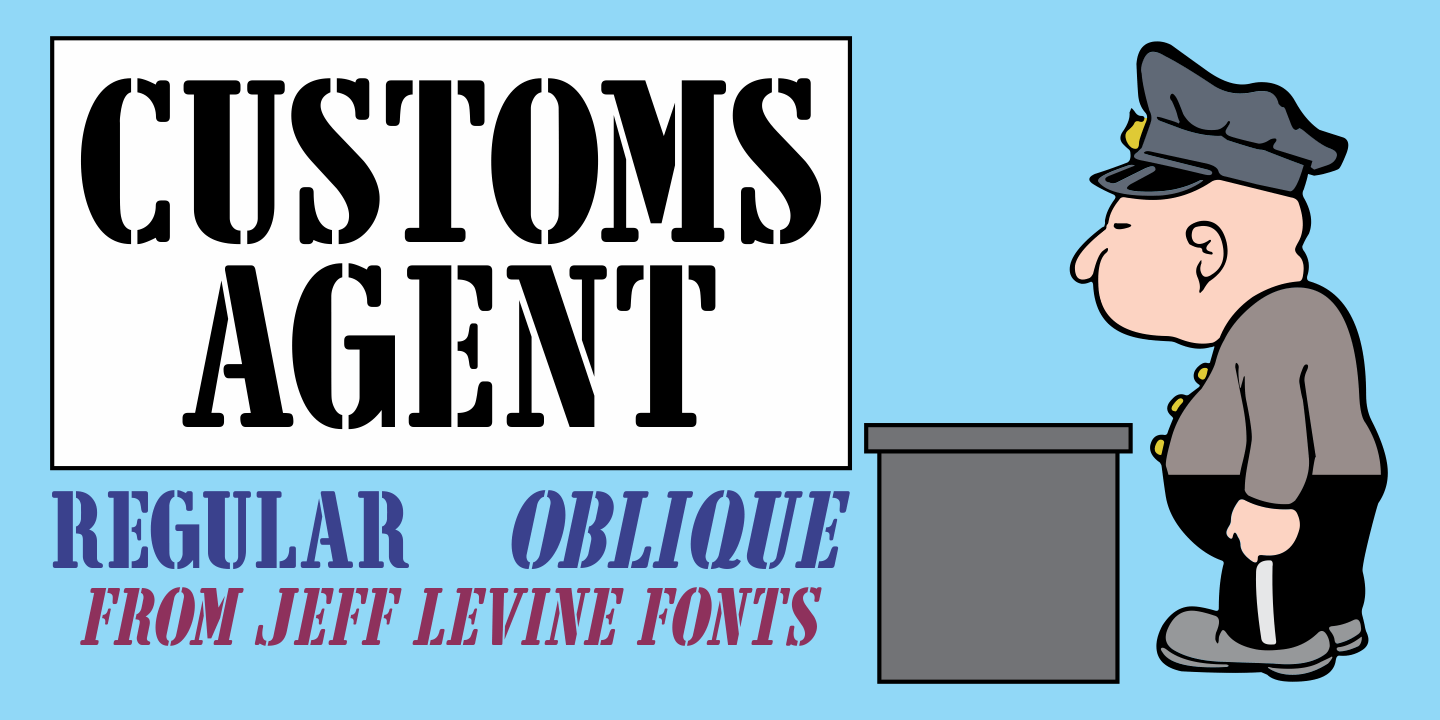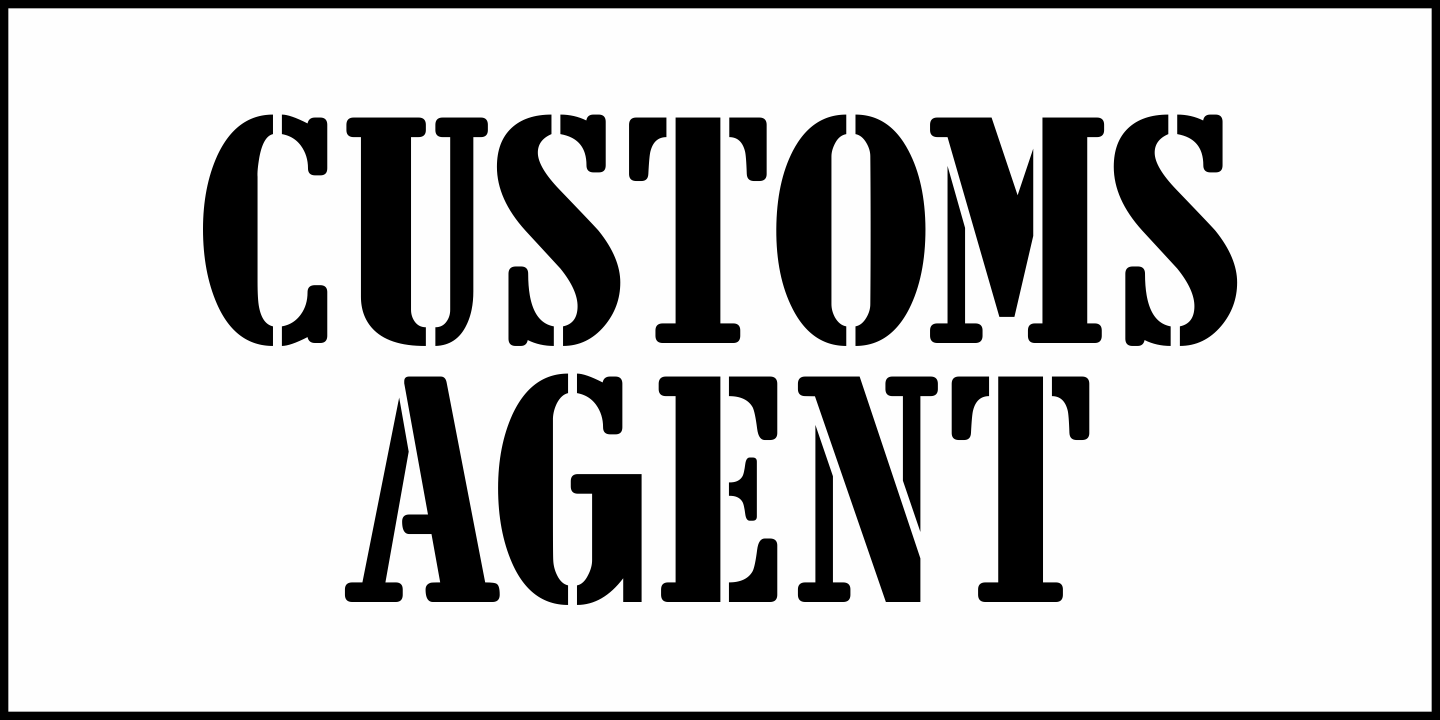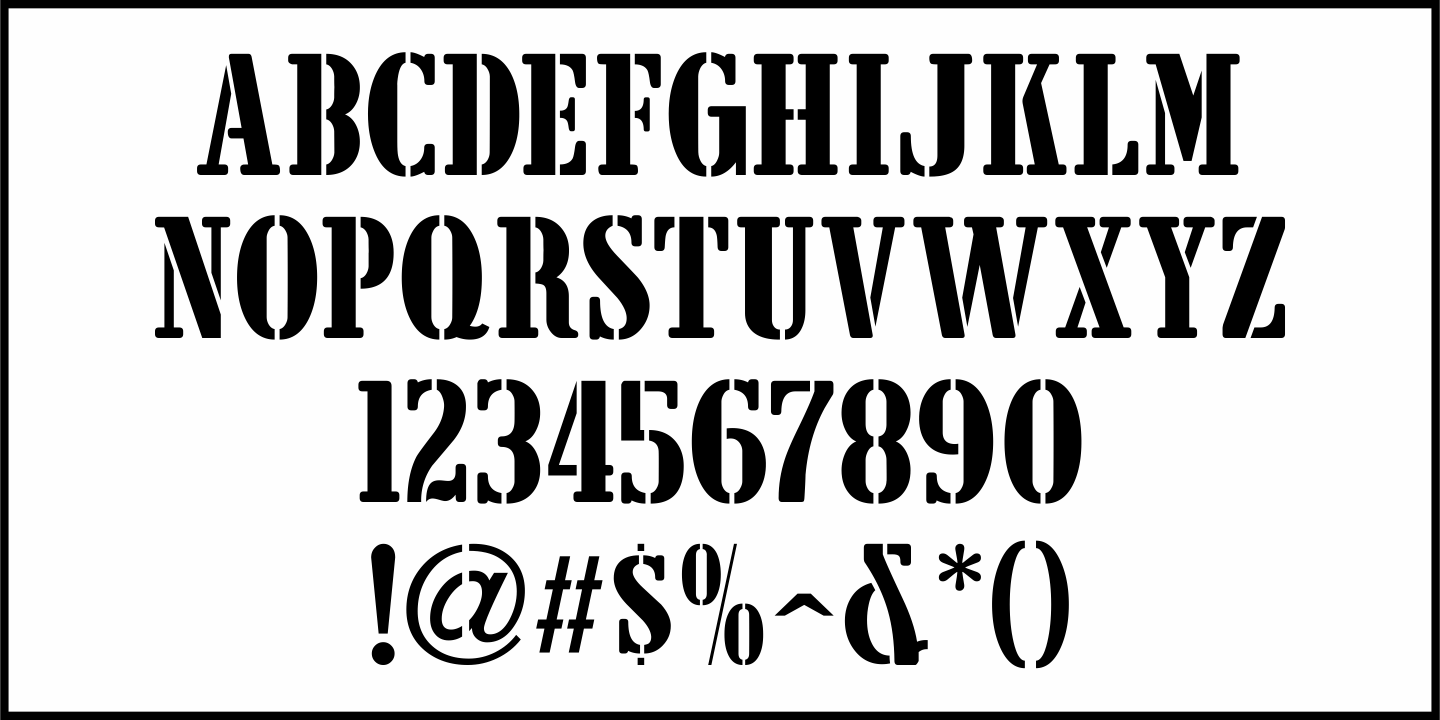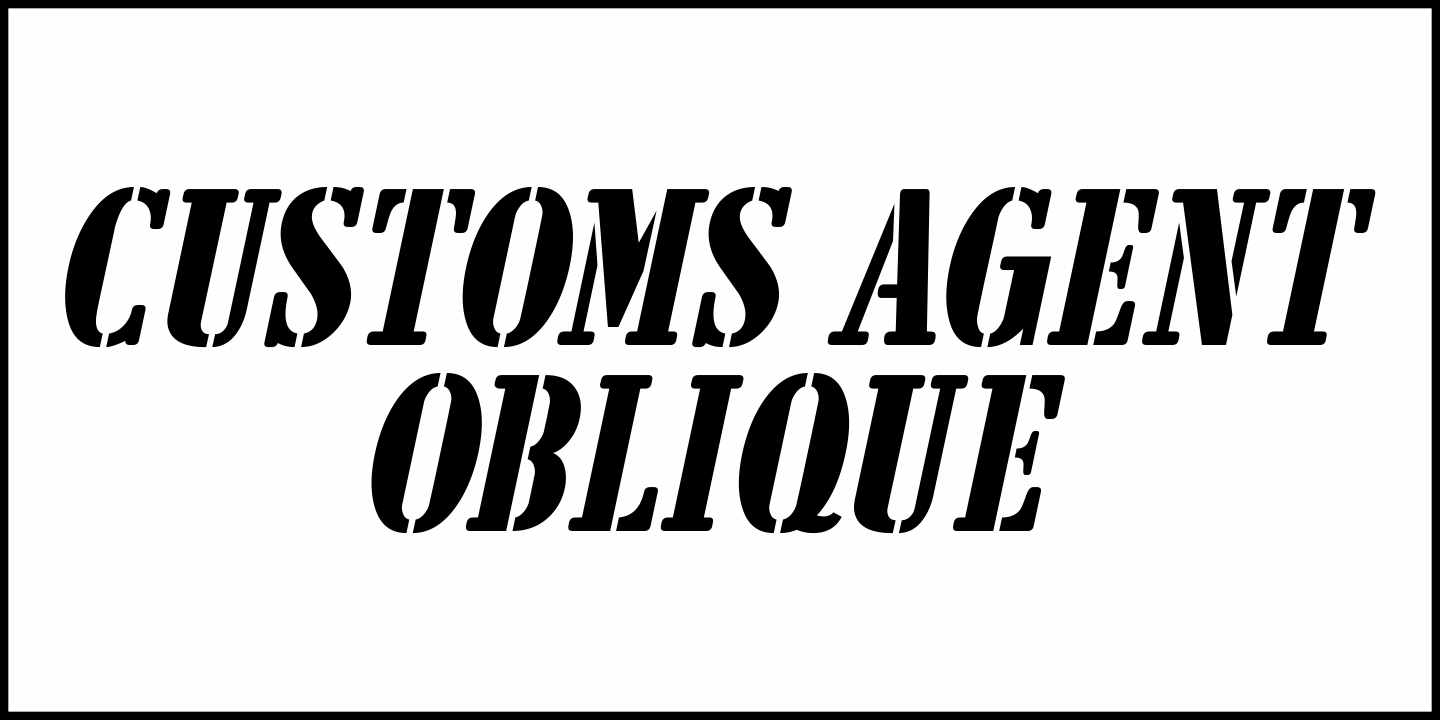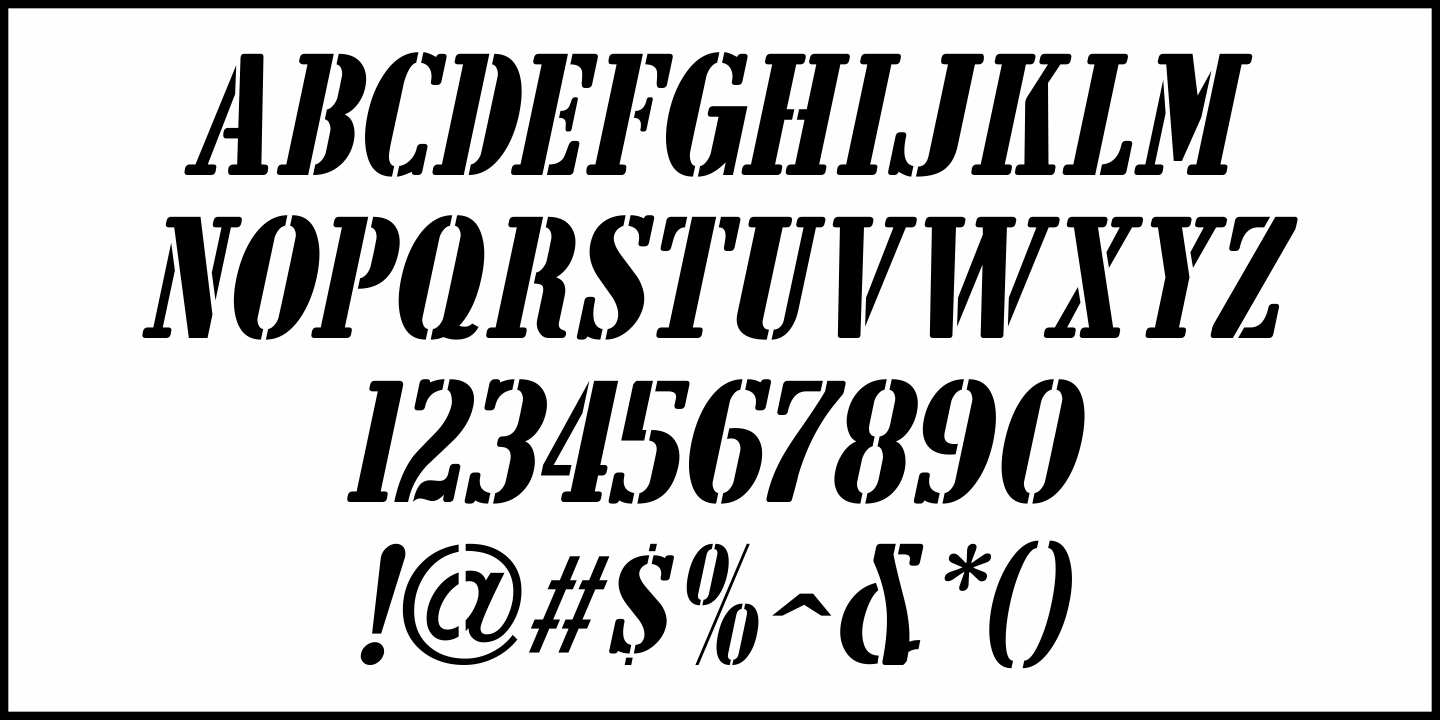
Customs Agent
The hand lettered, condensed stencil title on a movie poster for the 1950 film “Customs Agent” inspired both the digital typeface and the font’s name.
Customs Agent JNL is available in both regular and oblique versions.
Customs Agent JNL Regular by Jeff Levine Fonts